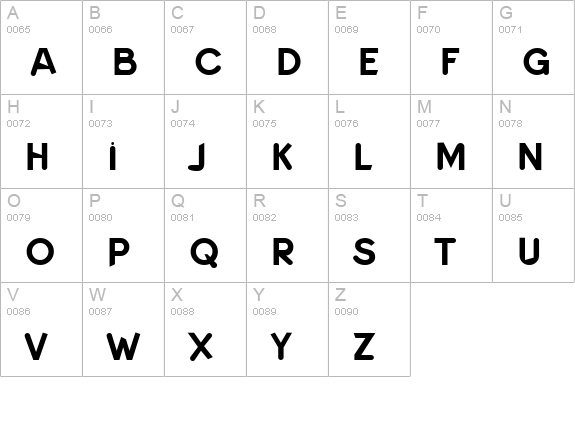
Isophan Font Details
Isophan font is a versatile and modern typeface that combines elegance with a touch of sophistication. Its clean lines and sleek design make it perfect for a wide range of design projects, from branding and packaging to digital and print media. The Isophan font exudes a sense of style and professionalism, making it a popular choice among designers and creatives alike. Best of all, Isophan font is available for free download on FontsMarket.com. Whether you're a seasoned designer looking to add a fresh font to your collection or a beginner searching for the perfect typeface for your next project, Isophan font is sure to impress with its timeless appeal and effortless charm. Download Isophan font today and elevate your designs with this stunning typeface.